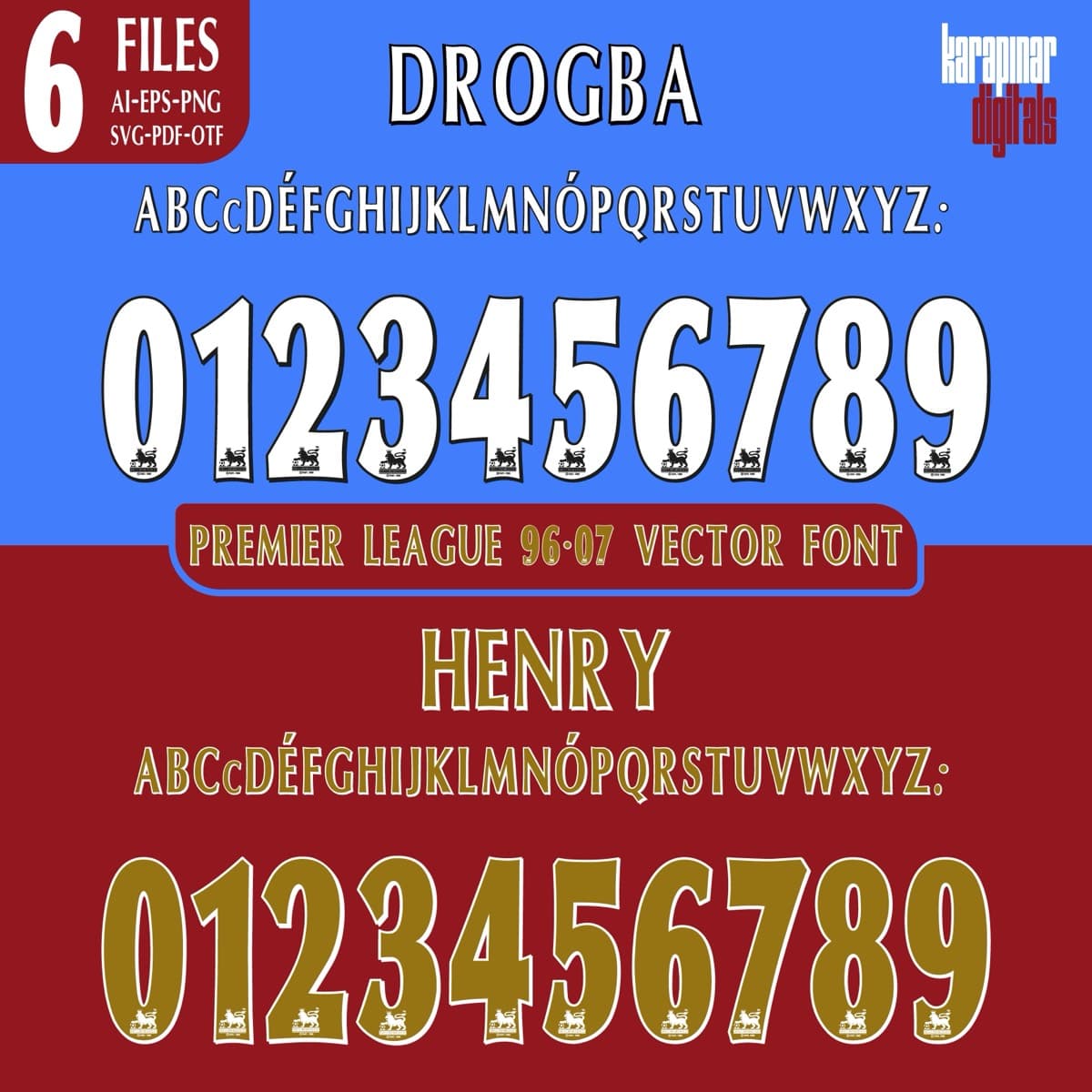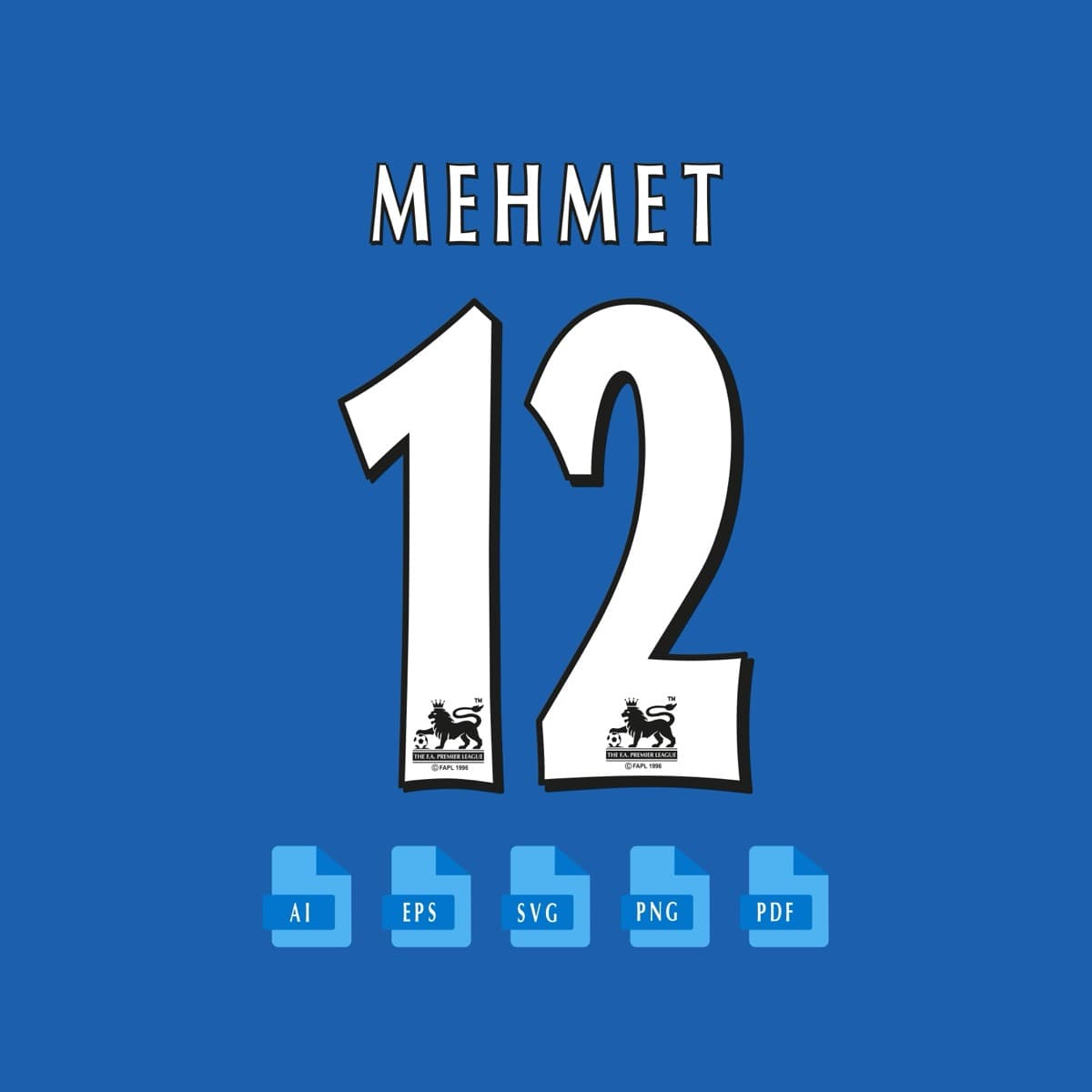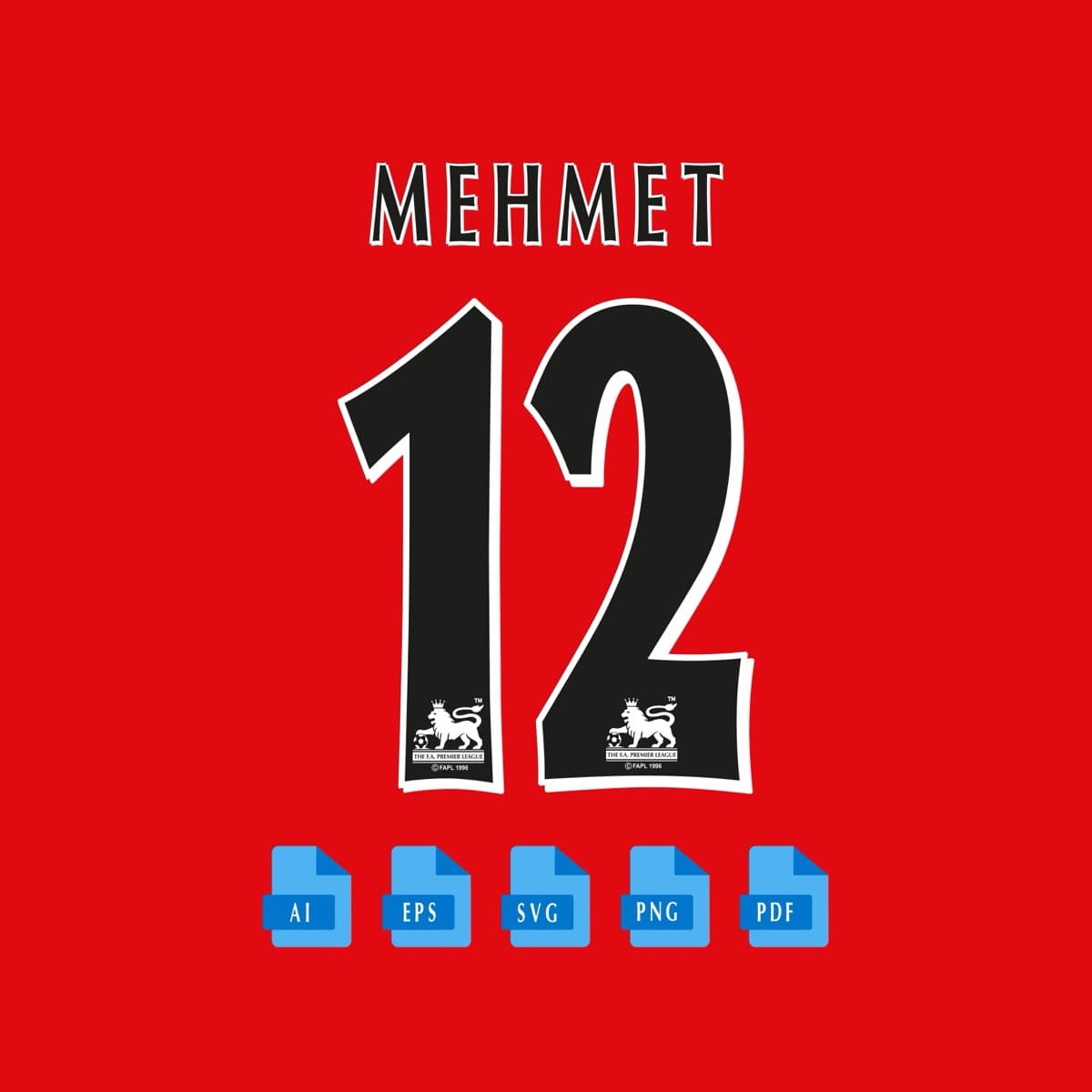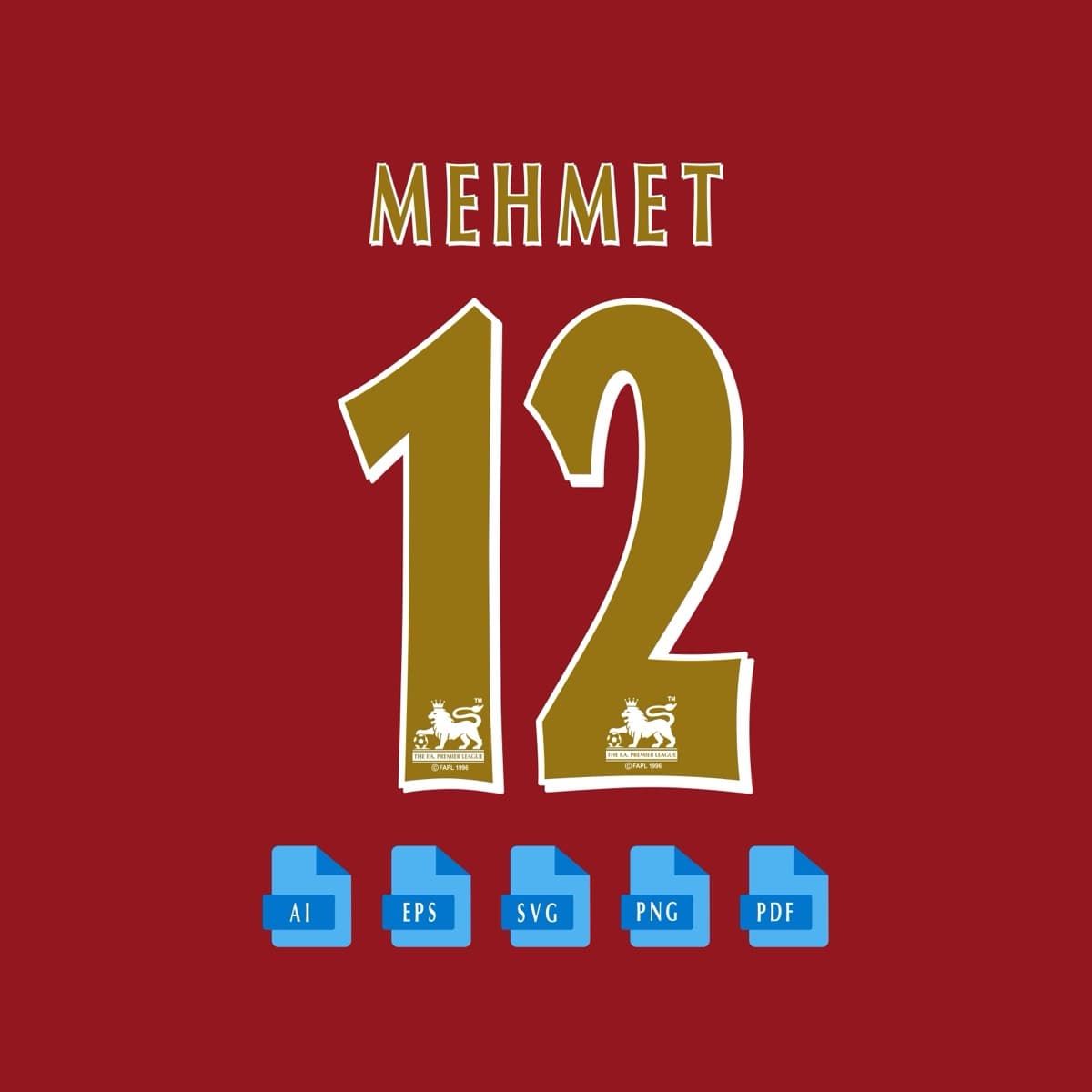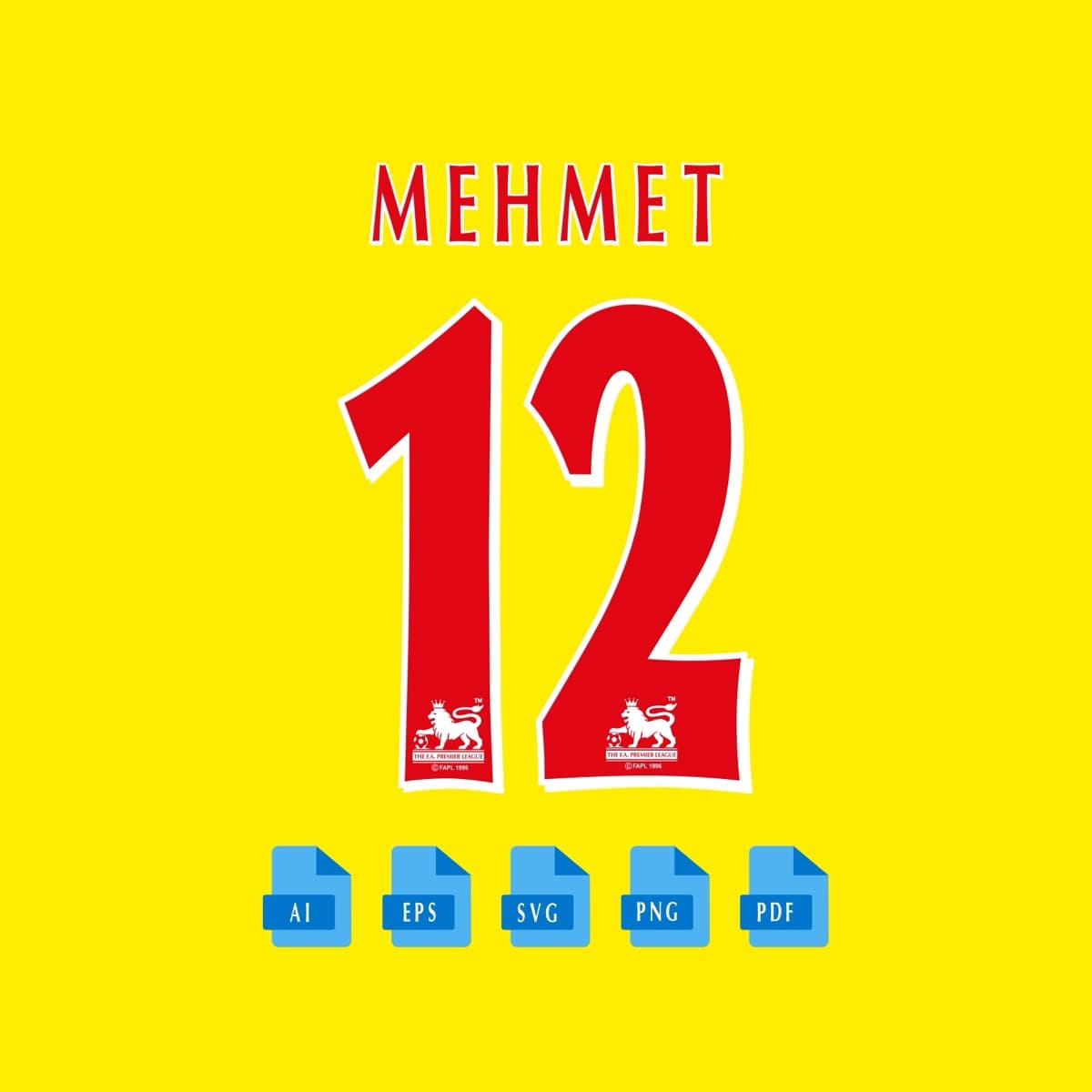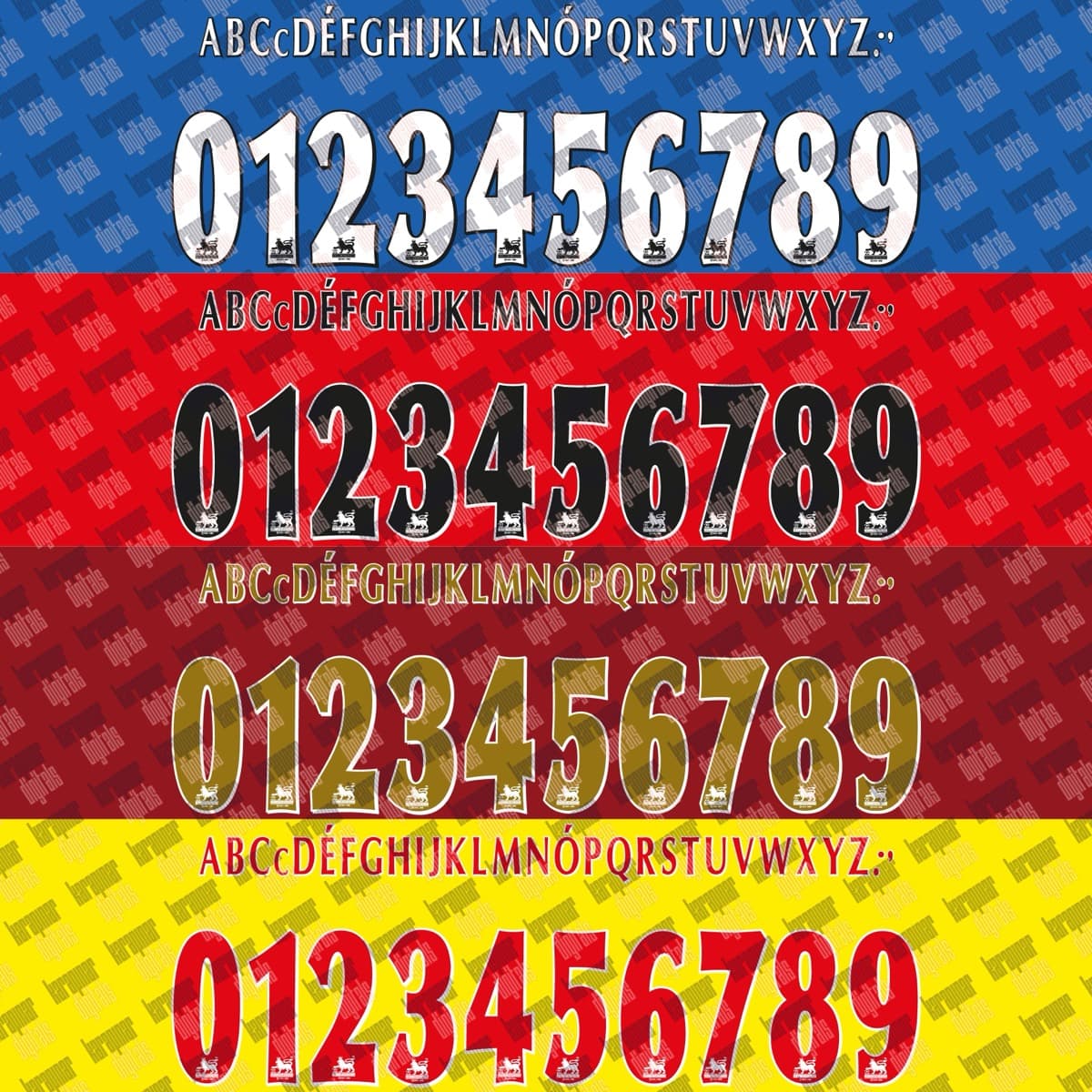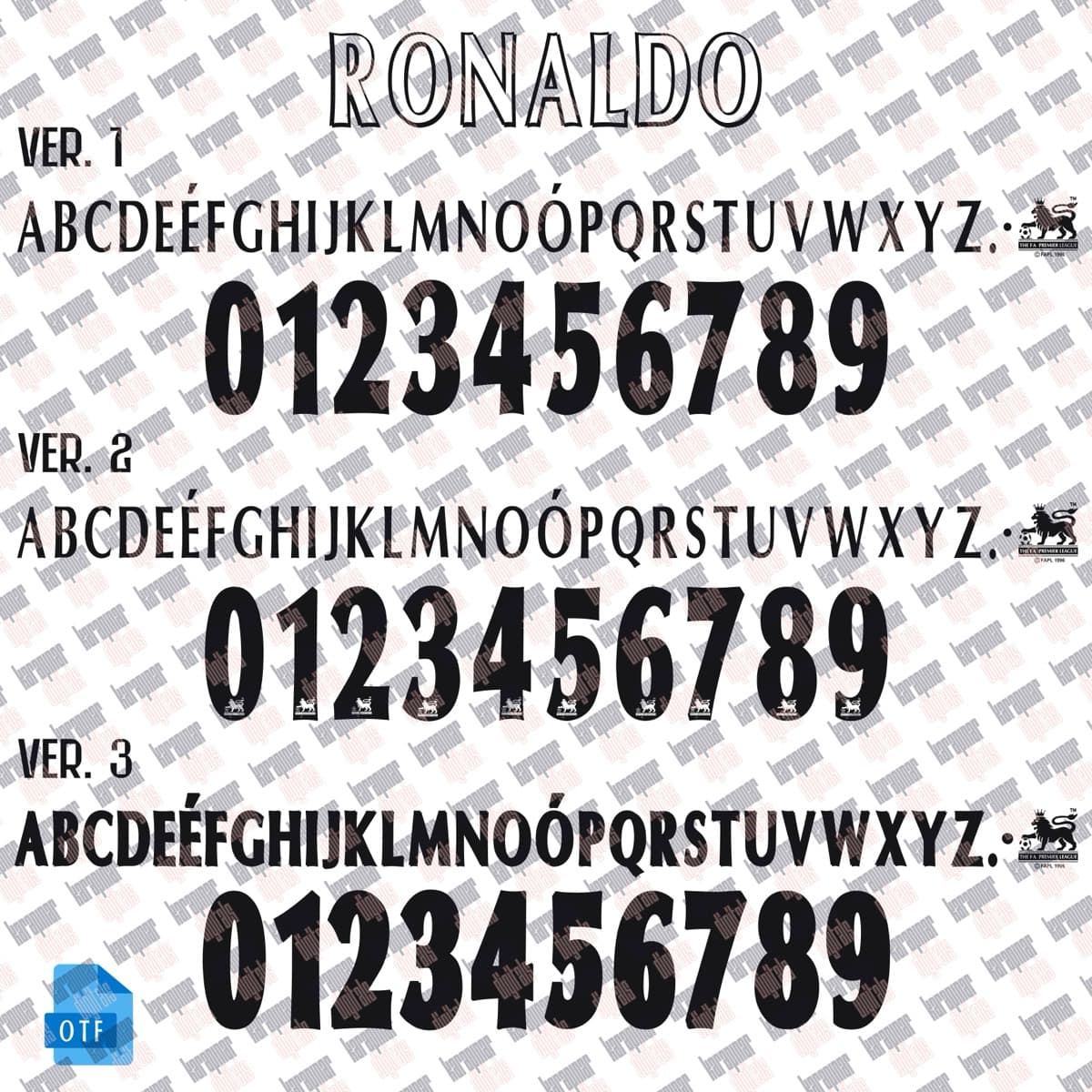
Premier League 1996–2007
Premier League Retro · 1996–2007 · 2 variants
NUMBERS & BADGES
Numbers & Badges
Premier League 1996–2007
A set inspired by the Premier League Retro 1996–2007 jersey typography, with a name and number system redrawn for print and screen. Original curves, consistent weight and a complete 0–9 numeral family.
Does it include lowercase?
Jersey sets focus on uppercase + numerals; the glyph map shows exactly what this set includes.